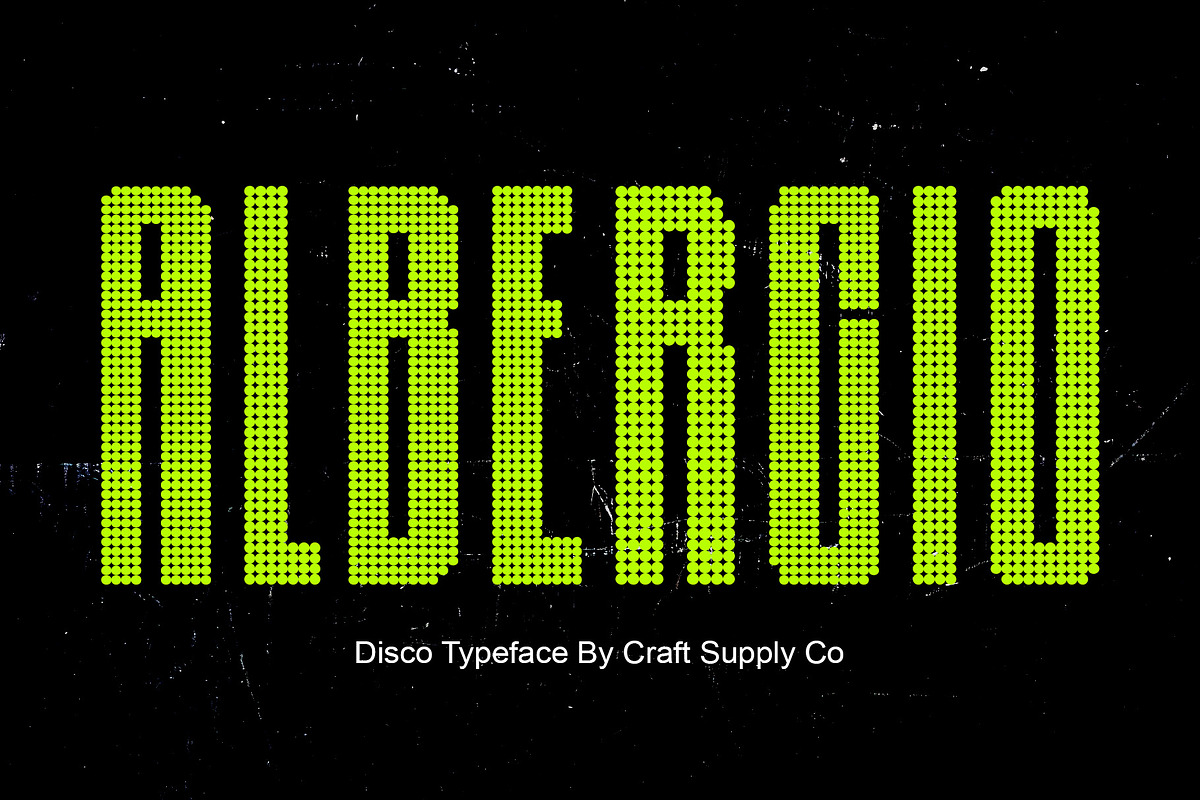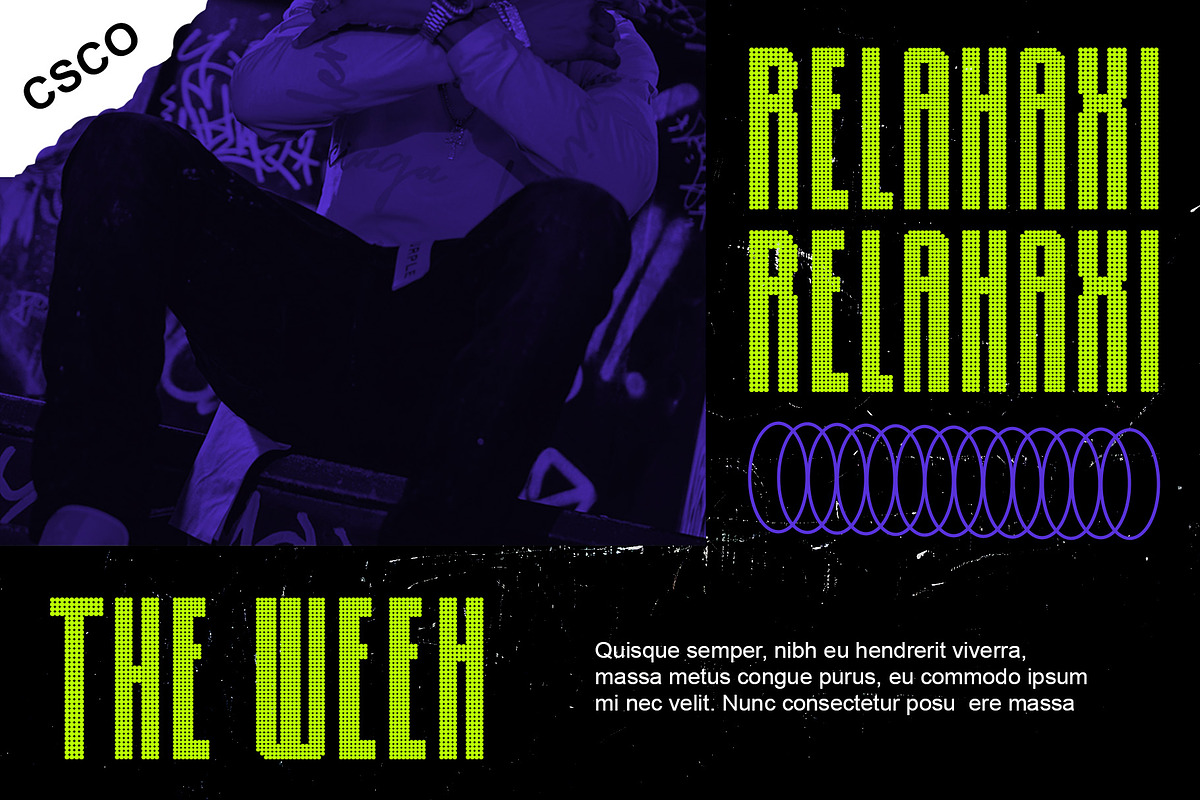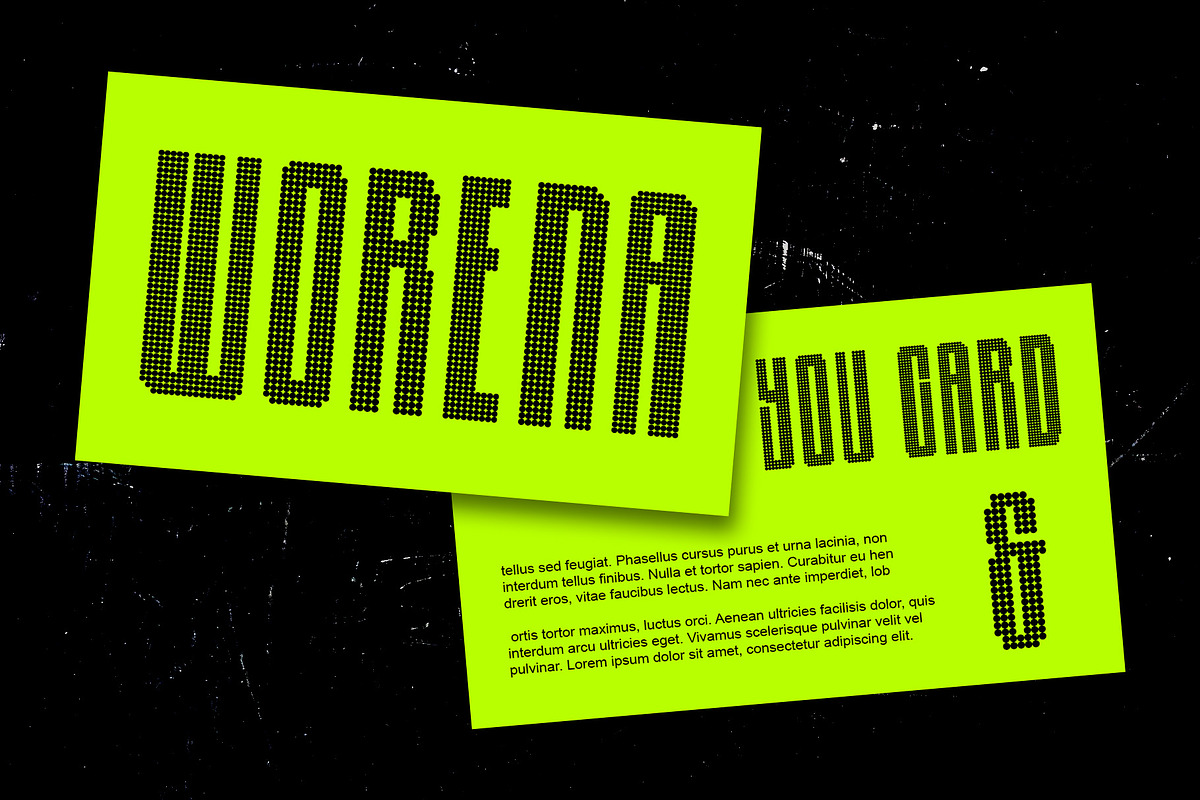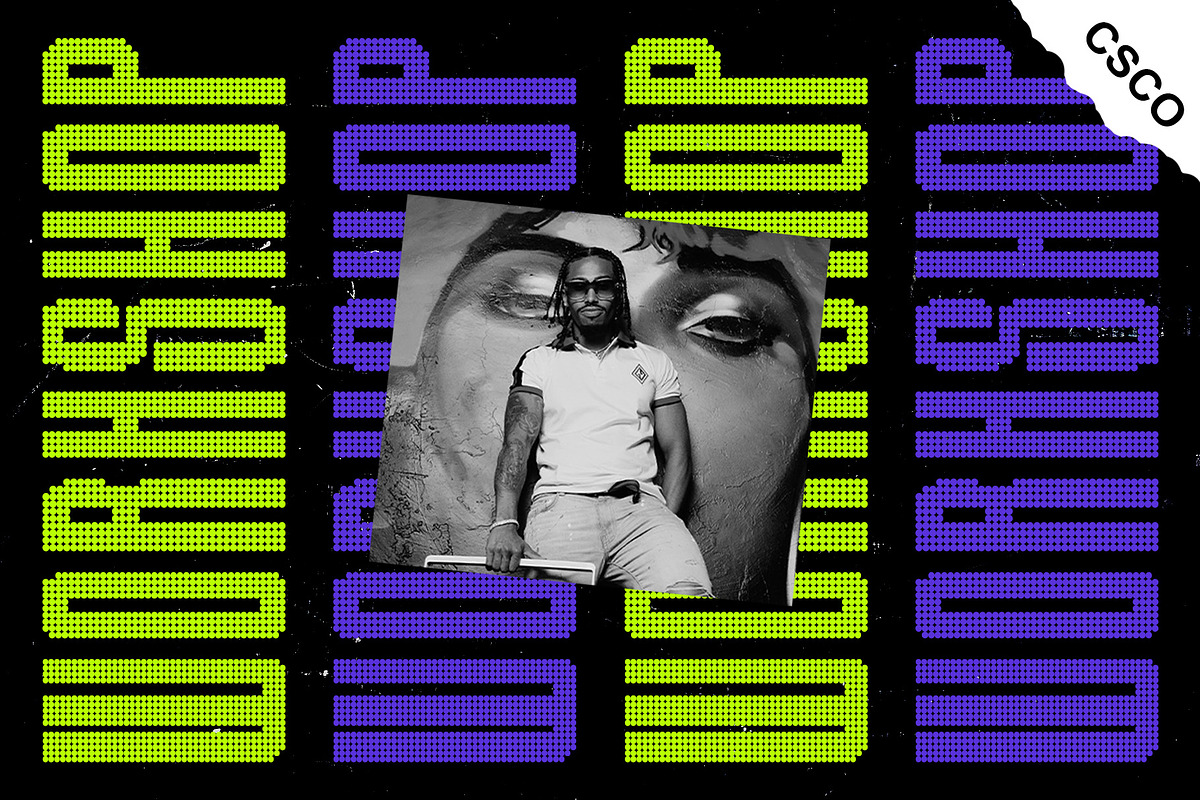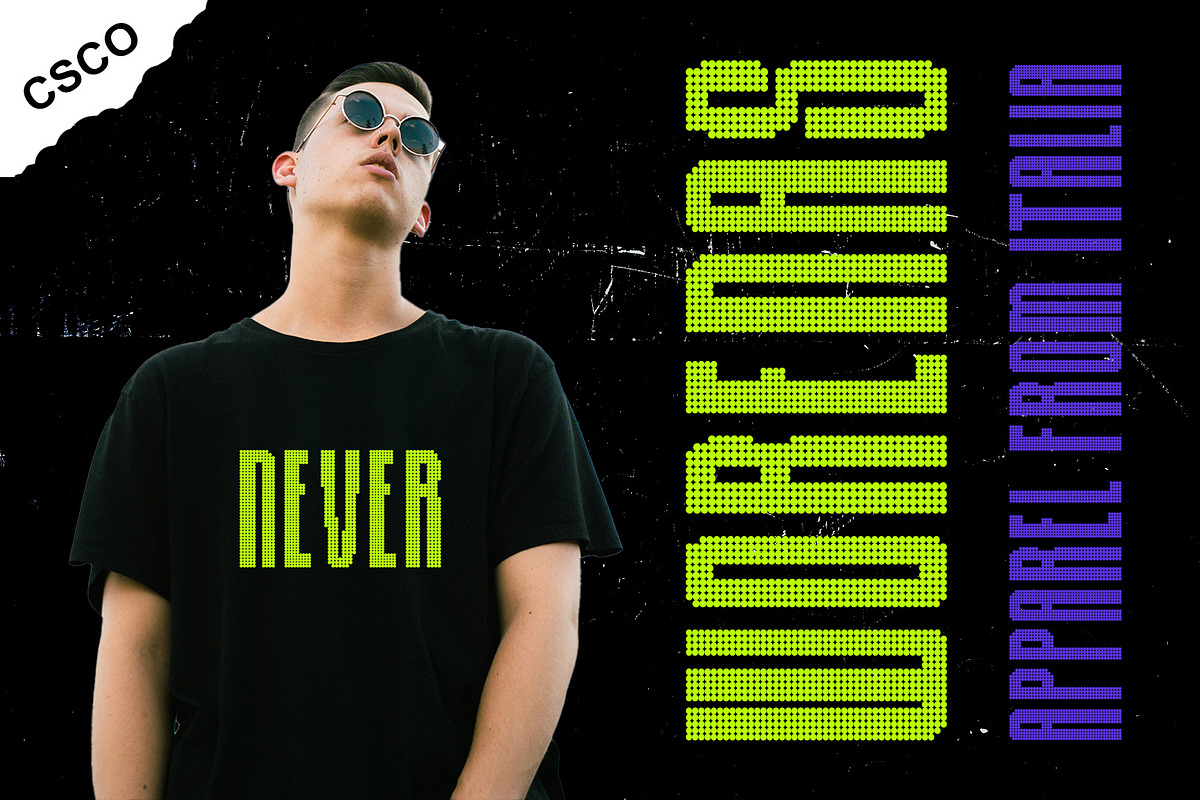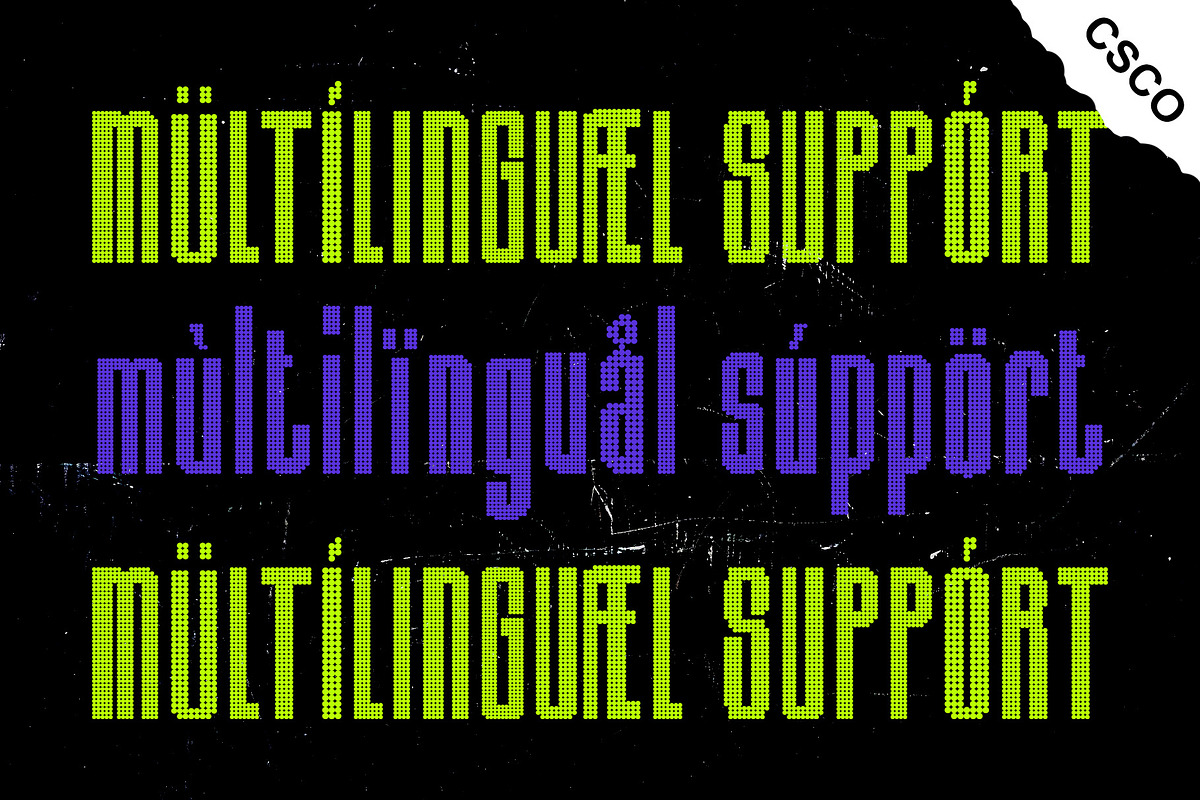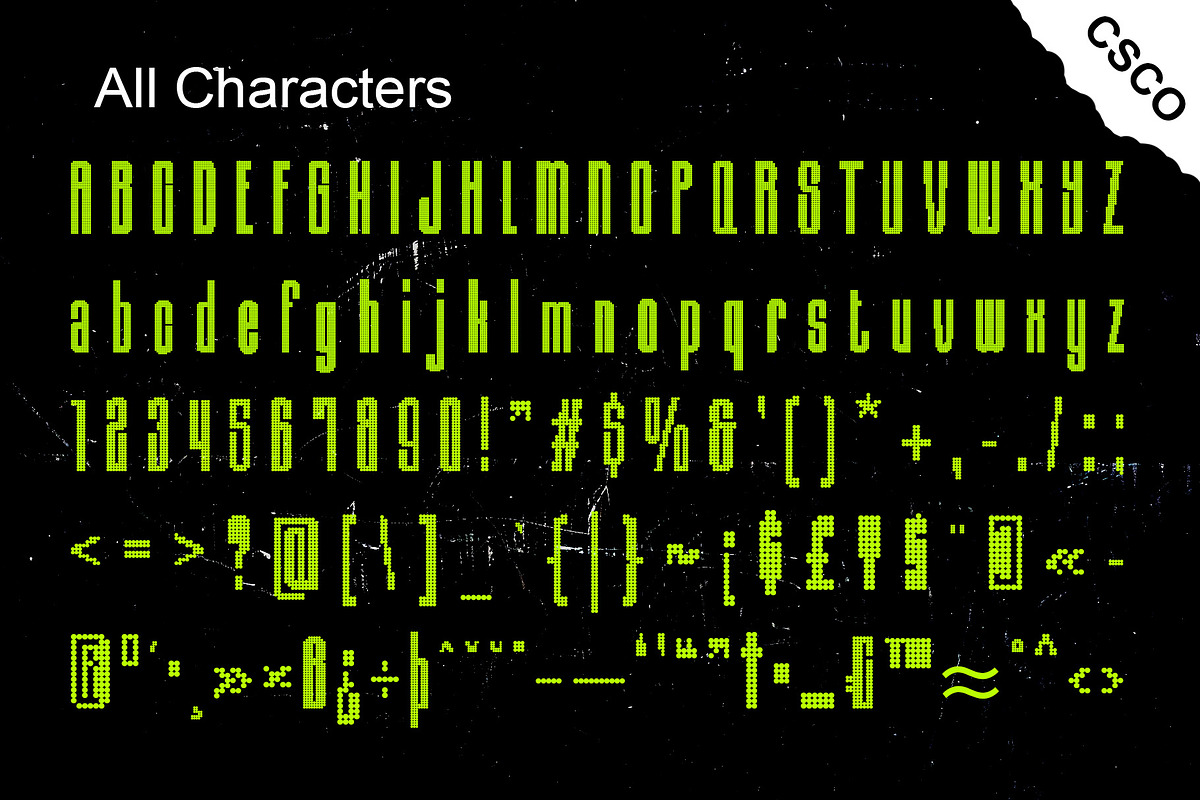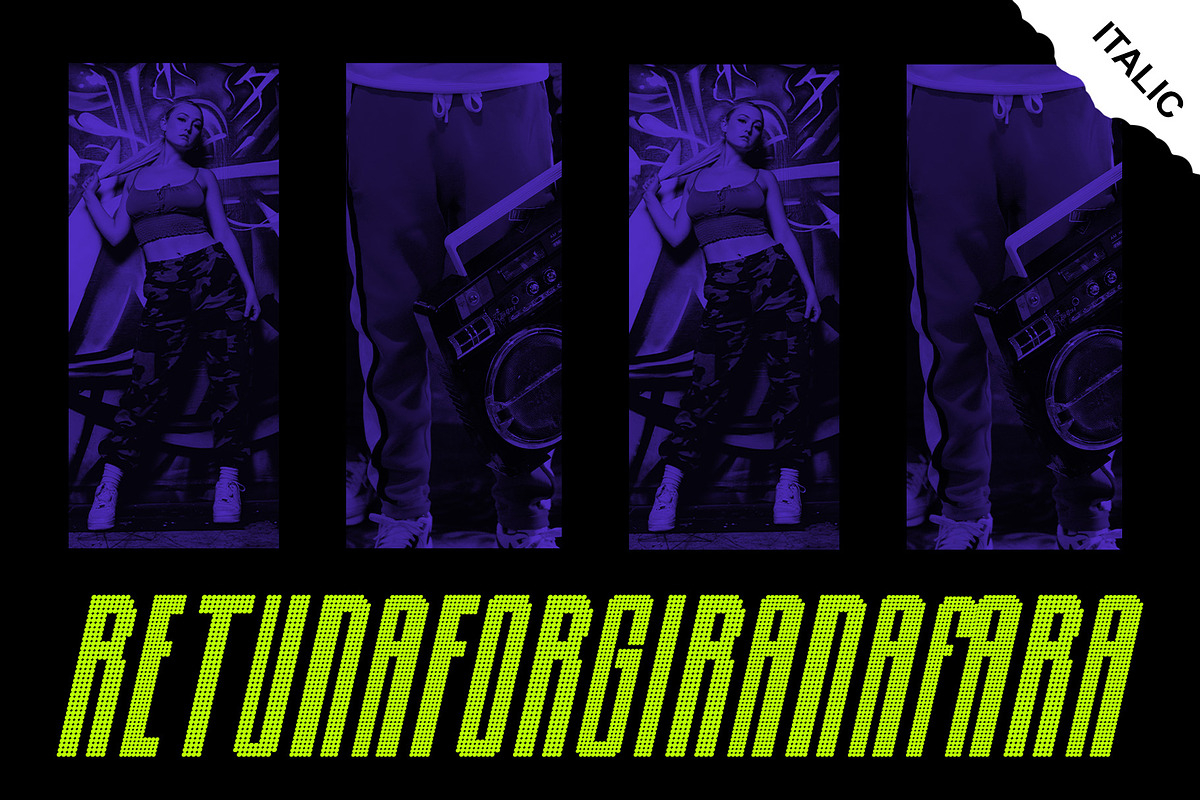
Albercio Disco
Albercio Disco: A Contemporary Display Typeface
Disco-inspired Dot Effect Albercio Disco features a sans-serif condensed design embellished with a captivating dot effect. This unique detail infuses the font with a disco-inspired vibe, adding a modern twist to any display project.
Sleek and Modern With its condensed form and dot effect, This font exudes a sleek and modern aesthetic. The font’s clean lines and bold presence make it a perfect choice for contemporary display purposes.
Vibrant and Trendy This font brings a vibrant and trendy feel to any design project. Its disco-inspired elements inject energy and excitement, making it ideal for capturing attention in various display contexts.
Versatile for Display Needs Tailored for display applications, This font offers versatility and impact. Whether used in posters, advertisements, or digital platforms, its bold and modern style ensures effective communication and engagement.
Bold and Dynamic Typeface This font stands out as a bold and dynamic typeface for contemporary display needs. With its sans-serif condensed form and captivating dot effect, it brings a touch of disco-inspired flair to modern design projects, making them visually striking and engaging.